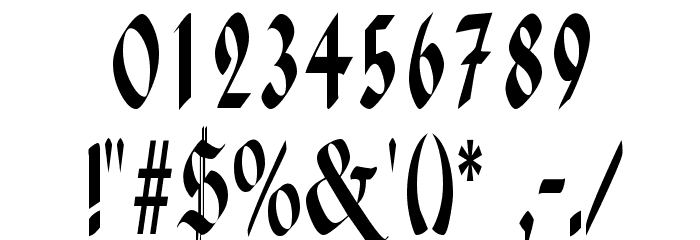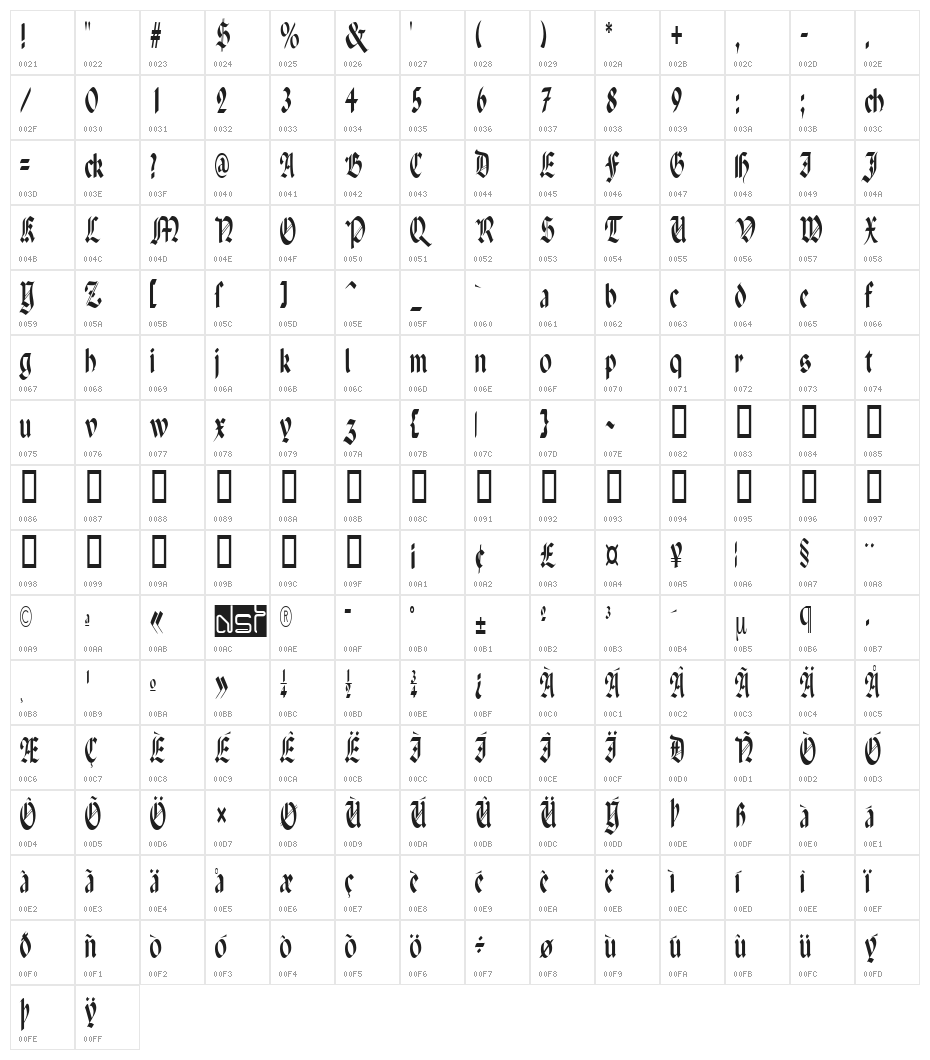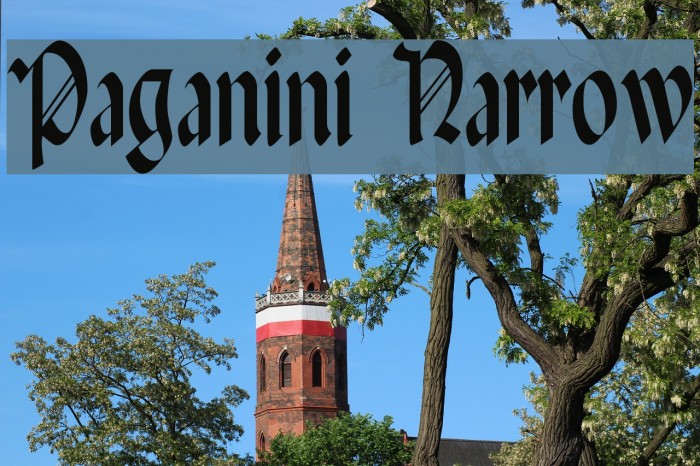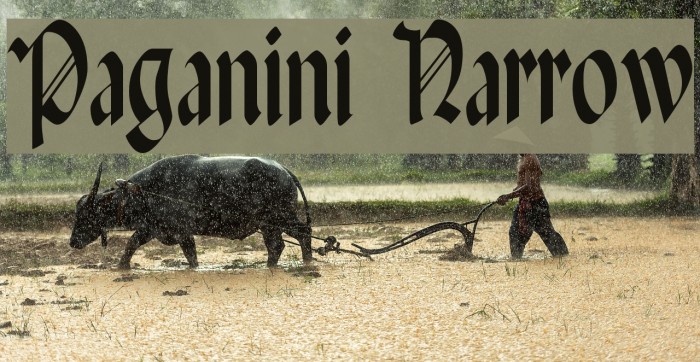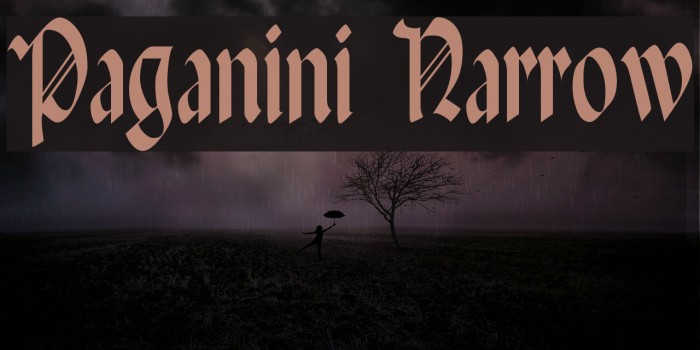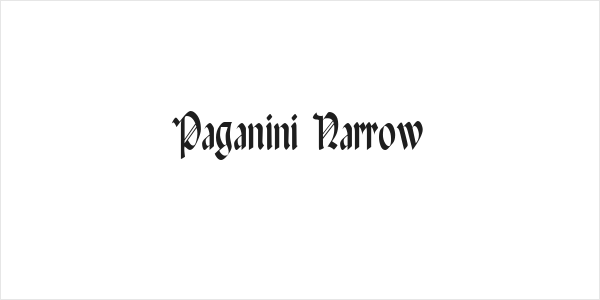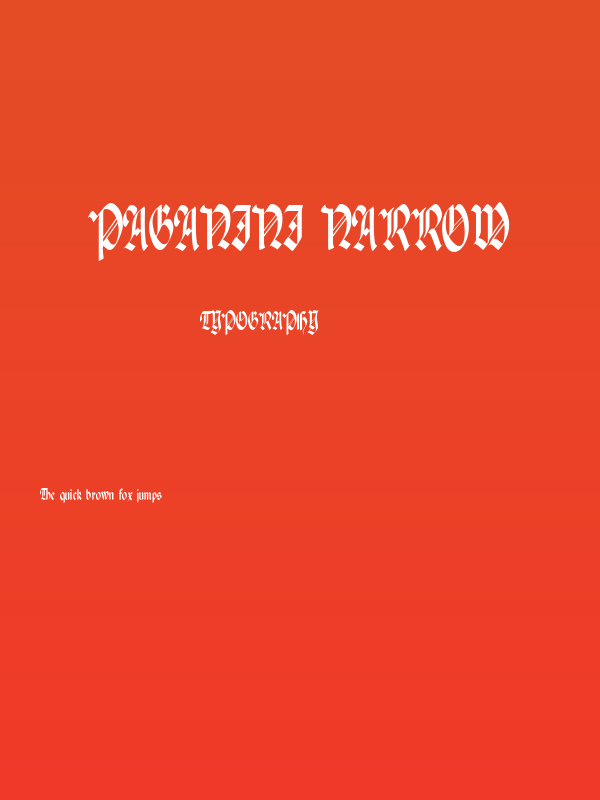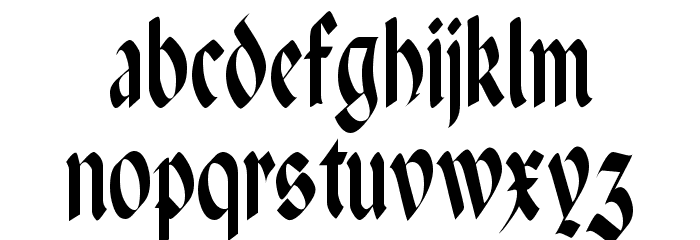
Paganini Narrow Font
Paganini Narrow Description
This font exhibits a classic blackletter style, characterized by its intricate and ornate letterforms. The uppercase letters are bold and angular, with sharp serifs and a distinct medieval aesthetic. The lowercase letters maintain a similar style, with a slightly more condensed form, enhancing readability while preserving the decorative elements. The numerals are consistent with the overall design, featuring sharp angles and a bold presence. Special characters are equally ornate, integrating seamlessly with the alphabetic characters. This font's narrow design adds a unique touch, making it suitable for creating an impactful visual presence.
Fonts by Dieter Steffmann
Overall StyleVintage
Use CaseHeadlines, Logos, Decorative text
Proposed ProjectsIdeal for historical or medieval-themed projects, book covers, posters, and branding that requires a traditional and ornate appearance.